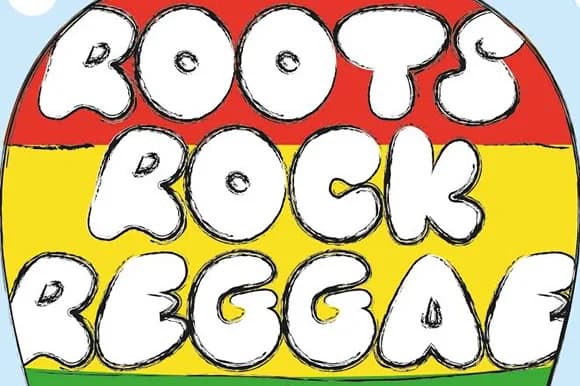
About Bubble Ras Full Font
Bubble Ras Full Font by GraphicsBam Fonts is a handwritten script steeped in reggae culture and Caribbean creative tradition. Emerging as the designer's first typeface, this version presents the font in a refined, un-outlined regular style while preserving the organic, hand-drawn character that gives it personality and soul. This typeface thrives in music-focused design work where authentic cultural expression matters. Consider reggae album artwork and vinyl record label design, both showcase how Bubble Ras brings genuine character to music visuals. Music festival promotional graphics, concert poster layouts, and streaming playlist cover art all benefit from its distinctive handwritten warmth. The aesthetic works beautifully for music merchandise packaging, vintage record store signage, and band identity materials that celebrate roots and reggae heritage. You'll find it equally suited for lifestyle branding projects seeking that authentic, laid-back feel without sacrificing design sophistication. The complete character set delivers uppercase and lowercase letters, full numerical support, and punctuation marks, ensuring comprehensive coverage for any project requiring this distinctive script. From throwback music event promotions to Rastafarian-inspired creative work, Bubble Ras brings unmistakable character and cultural resonance to your designs. Get Bubble Ras Full Font on Creative Fabrica and infuse your projects with this soulful handwritten script.
Bubble Ras Full Font is a script font that shines as a display or heading face. Pair it with a clean sans-serif or serif font for body text β the contrast creates a clear hierarchy while the two styles stay balanced and easy to read.